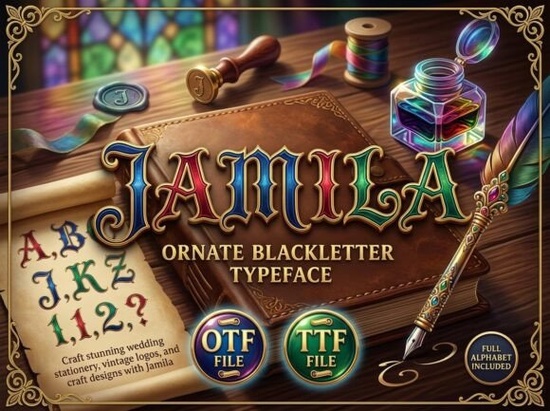
There's something about a Blackletter font that instantly tells your audience this project means business. Jamila Font takes that gothic foundation and layers it with ornate detailing and jewel-toned metallic textures, making it a strong pick for wedding stationery, fantasy branding, and vintage logo work. If you need a typeface that carries old-world charm without feeling outdated, this ornate Blackletter option is worth a closer look.
Is Jamila Font a good choice for wedding invitations?
Absolutely and this is probably its most popular use case. The combination of gothic structure and rich metallic detail gives wedding stationery a regal, timeless quality. Think about the projects where you'd want your typography to feel luxurious:
- Save-the-dates and formal invitations
- Table numbers and menu cards
- Envelope addressing for a classic aesthetic
- Wedding websites needing a serif or decorative hero font
Because Jamila uses Blackletter construction, it pairs well with clean sans-serif fonts for body text. A simple pairing like Jamila for headings and a light geometric sans for details keeps your layout readable while maintaining that elegant feel crafters and designers love.
Can I use it for branding and logo design?
Yes, and it works especially well for brands that want to communicate heritage, luxury, or artisanal quality. Here are a few business types where this font makes a natural fit:
- Luxury perfume and cosmetics packaging
- Artisan food and craft beverage labels
- Boutique fashion and jewelry branding
- Fantasy or historical themed book covers and merchandise
The ornamental detail in Jamila's letterforms means it stands on its own as a logo element. You don't need a lot of extra graphics the typeface itself becomes the visual identity. That's a real time-saver for small business owners working on a budget.
Does it work for print-on-demand and craft projects?
This is where Jamila really shines for creative hobbyists and POD sellers. Its bold, decorative style translates well across many physical and digital products:
- T-shirts and hoodies with fantasy or medieval themes
- Mugs and tote bags for novelty gifting
- Wall art prints and quote posters
- Scrapbooking and card-making elements
- Social media graphics for themed campaigns
For print-on-demand, keep in mind that Blackletter fonts render best at larger sizes. Use Jamila for display text, titles, and hero words rather than small paragraphs. This keeps your products looking sharp and professional on every platform.
What fonts pair well with a Blackletter typeface?
Pairing is everything when working with decorative fonts. Jamila's detailed gothic style needs a simpler companion to balance the layout. Here are a few pairing strategies that work well:
- With a clean sans-serif A font like Montserrat or Lato gives your body text a modern contrast against Jamila's medieval structure.
- With a classic serif Something like EB Garamond or Playfair Display adds sophistication without competing for attention.
- With a handwritten script For wedding or craft projects, a casual script font can soften the formality of Blackletter.
The key is to let Jamila carry the visual weight on headings and titles while your secondary font handles readability for longer content.
Tips for getting the most out of Jamila
- Use it at larger sizes The ornate details are best displayed at 24pt and above.
- Test on dark backgrounds The metallic jewel textures look especially striking on deep navy, black, or burgundy backgrounds.
- Kerning matters Blackletter fonts sometimes need manual kerning adjustments, especially in letter pairs like "Th" or "Ty."
Jamila Font is a purposeful choice for anyone building a project around gothic elegance and medieval aesthetics. Whether you're a crafter making seasonal cards or a designer building a luxury brand identity, starting with the right typeface saves time and delivers a polished result from the start.